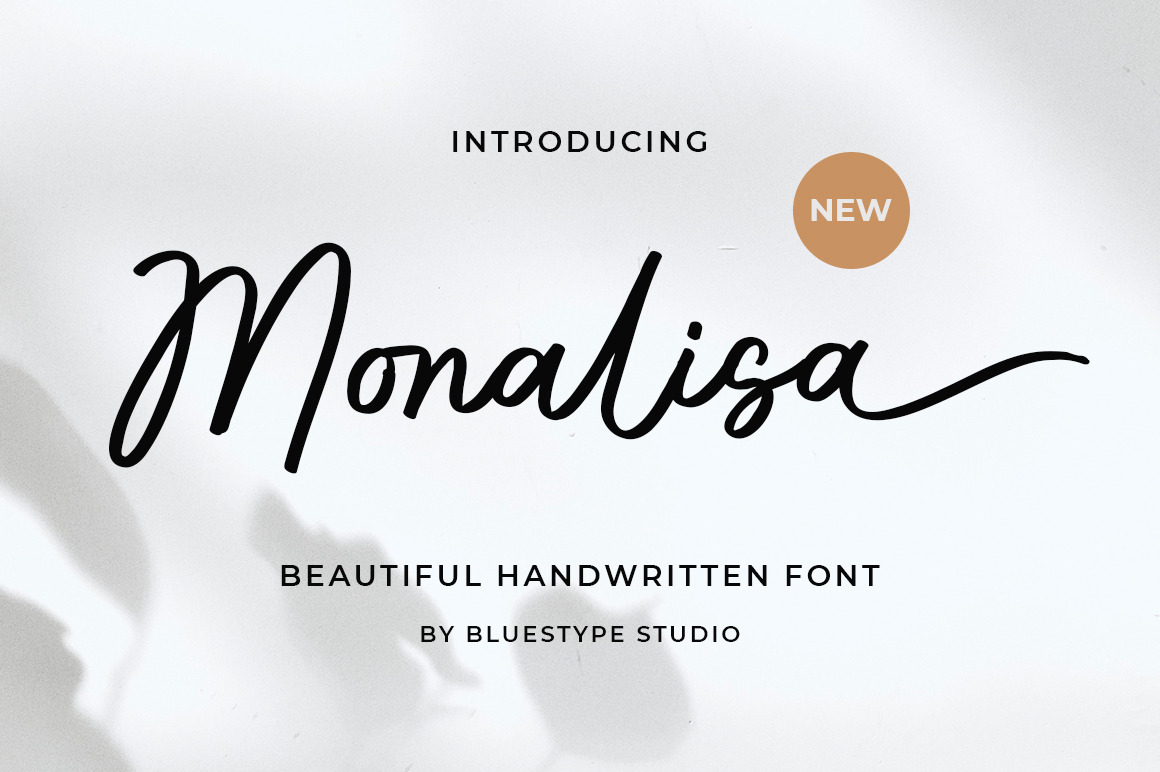
Monalisa - Handwritten Script Font
Hello ! This is our newest product font called Monalisa. Monalisa is a beautiful and casual handwritten font. This stylish font will look gorgeous on a variety of design ideas. It will add a joyful and modern touch to each of your projects!
This font is suitable for use on branding, photography, business cards, weddings, t-shirt designs, logo, magazines, quotes, fashion, watermarks, invitations, signatures.
- Stylistic Alternate
- Stylistic Set
- Support Multilingual Languange